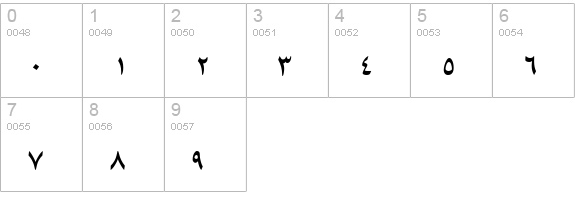
B Sepideh Font Details
B Sepideh font is a modern and stylish typeface that exudes elegance and sophistication. With its clean lines and unique design, this font is perfect for a wide range of design projects, from branding to editorial design. B Sepideh font is free to download, and you can easily access it on FontsMarket.com. Its versatility and readability make it a popular choice among designers looking for a sleek and contemporary font option. Whether you're creating a logo, poster, or website, B Sepideh font is sure to make your design stand out. Download this stunning font today and elevate your projects with its timeless appeal.